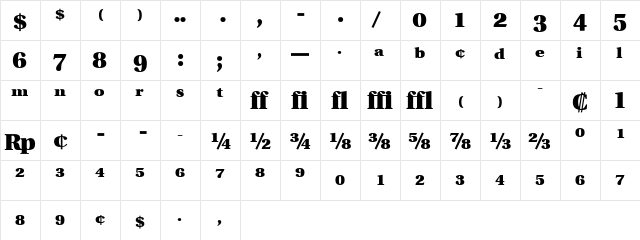
UtopiaExp Black Regular
Design Context for UtopiaExp Black Typeface
UtopiaExp Black offers clean, dependable letterforms without strong stylistic allegiance, making it a practical choice for designers who need flexibility.
Pro Tip: Use UtopiaExp Black in both headline and body roles to test its range before committing to a single application.